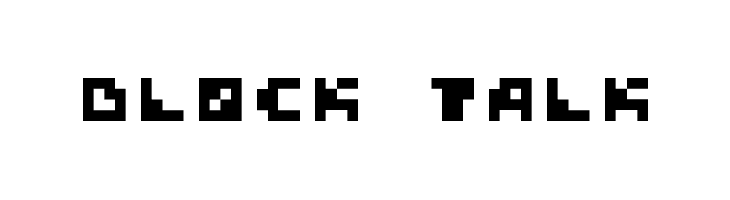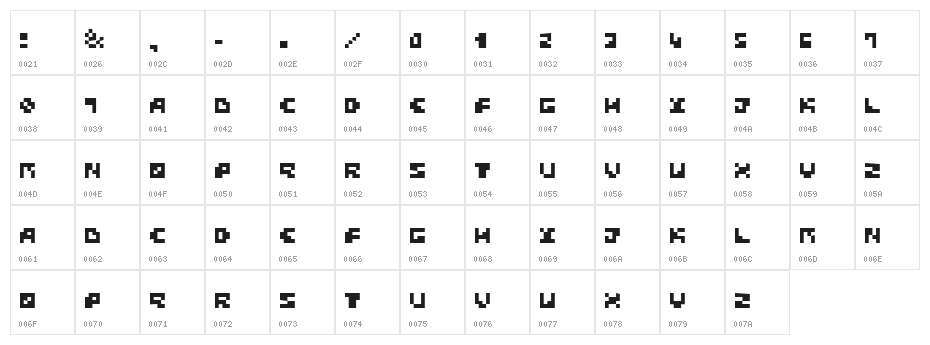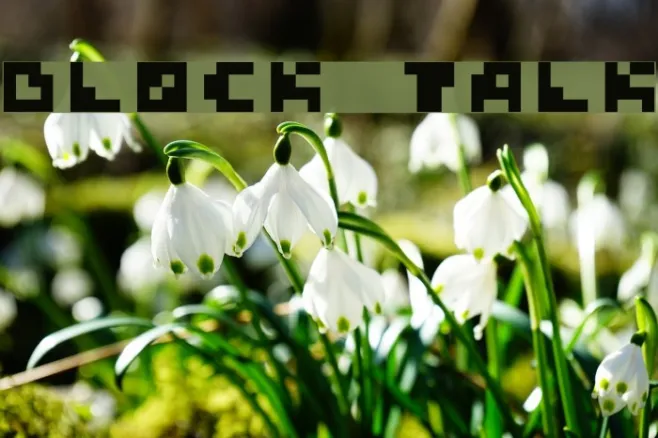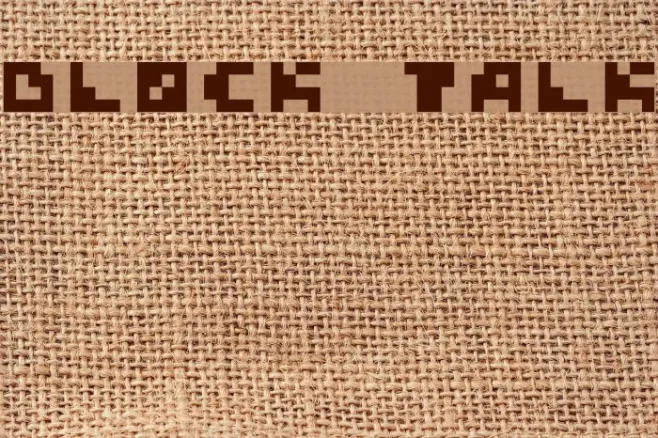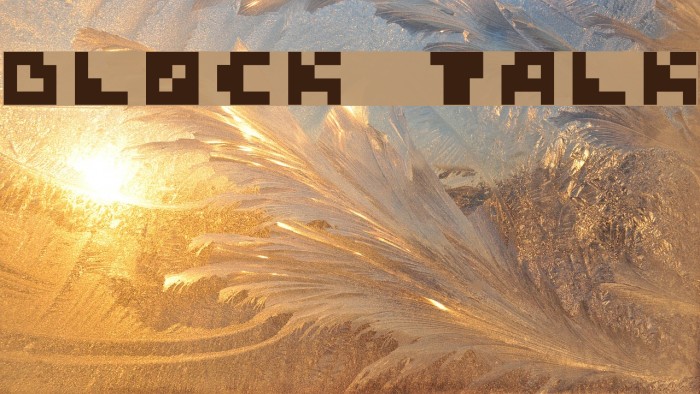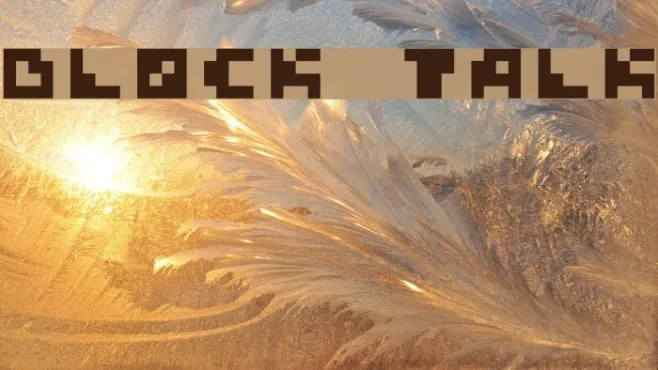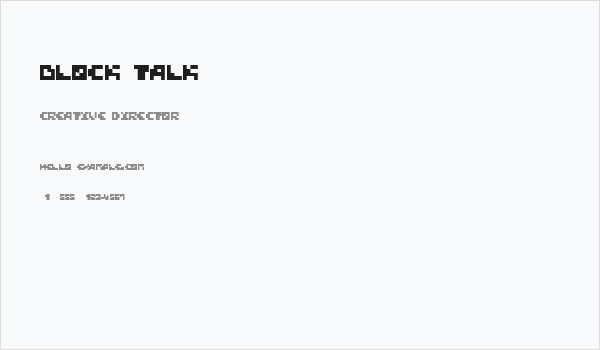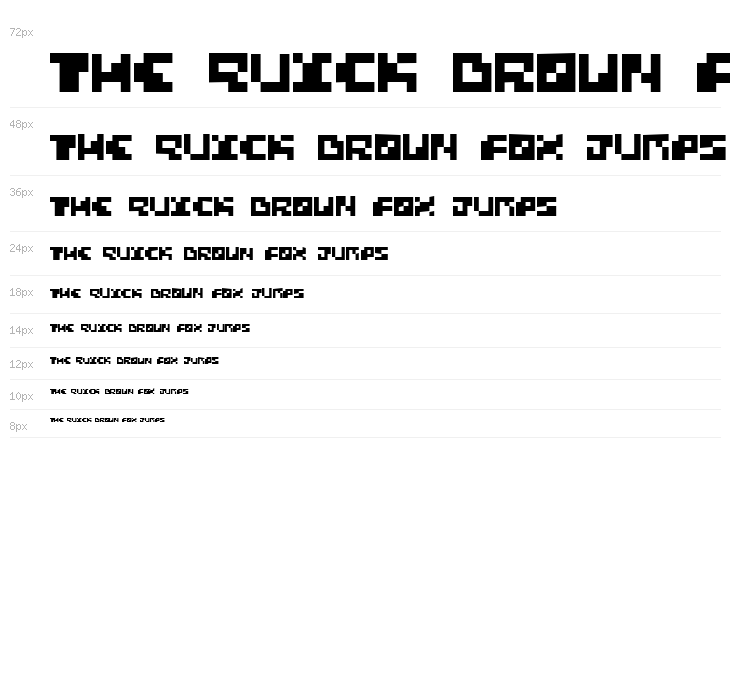
Block Talk Font
Block Talk Description
This font features a bold, pixelated design reminiscent of early digital displays and retro video games. Each character is constructed with a blocky, geometric style, creating a strong visual impact. The uppercase and lowercase letters maintain a consistent height, emphasizing uniformity and simplicity. The numerals and special characters follow the same pixelated theme, ensuring a cohesive look across all glyphs. The font's distinct style makes it ideal for projects that require a vintage or tech-inspired aesthetic.
| Proposed Projects | Ideal for video game design, retro-themed posters, digital art, and tech-related branding. |